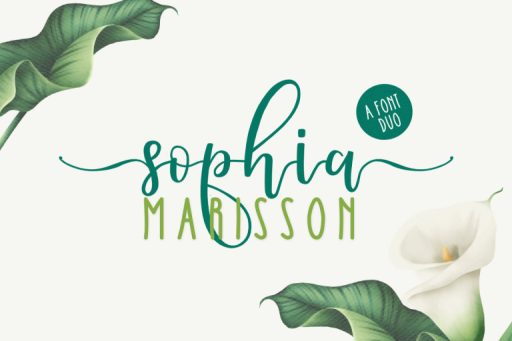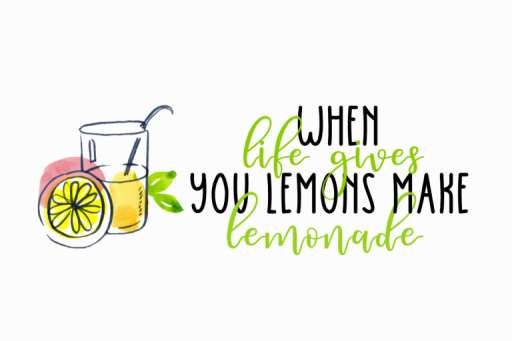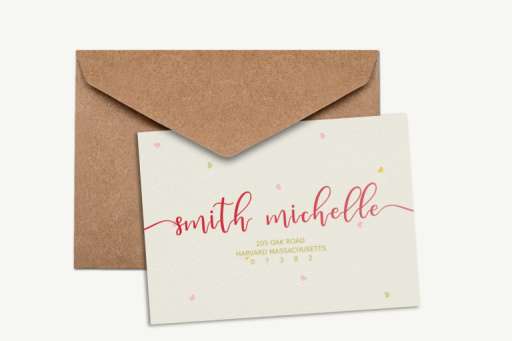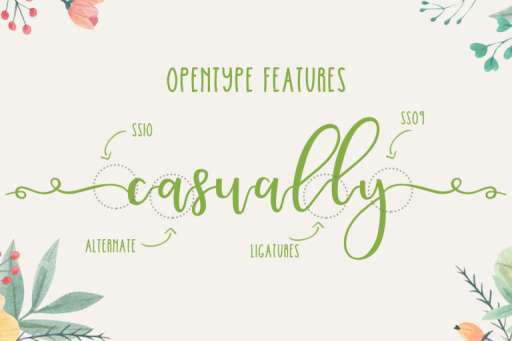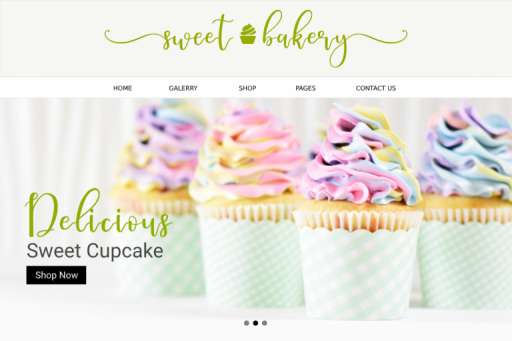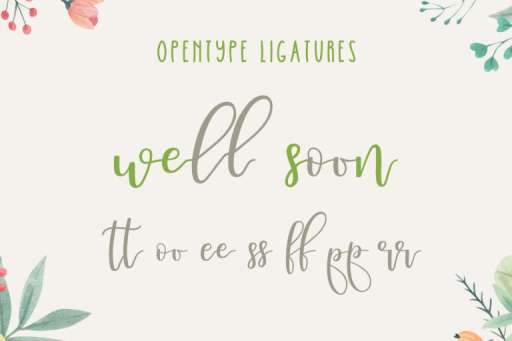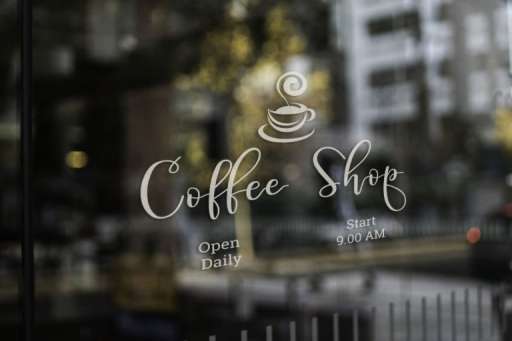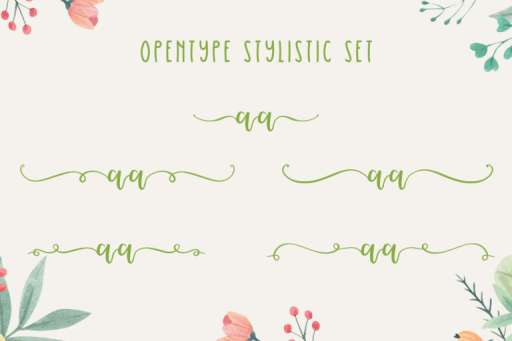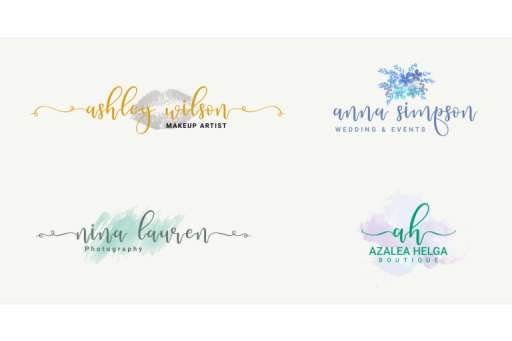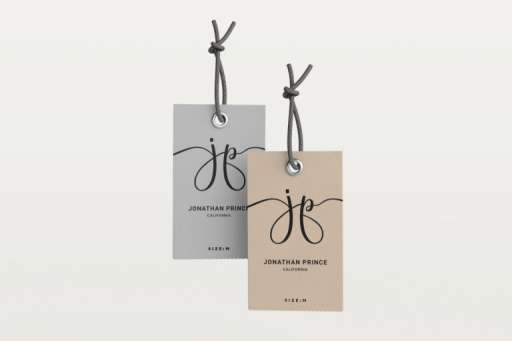
Sophia Marisson Script
Sophia Marisson Sans
Sophia Marisson – Font duo
Sophia Marisson Font Duo is a hand-lettered modern calligraphy script with a playful yet elegant nature. The script fonts include Opentype Stylistic Alternates for all lowercase letters, and a selection of Ligatures.
A collection of whimsical end and beginning stylistic are also included to add a finishing touch or fill design space in your type designs.
Included alongside the script fonts, playful uppercase handwritten sans for more casual designs.
Sophia Marisson Features :
• Numbers and Punctuation
• Alternates
• Stylistic set
• Multilingual